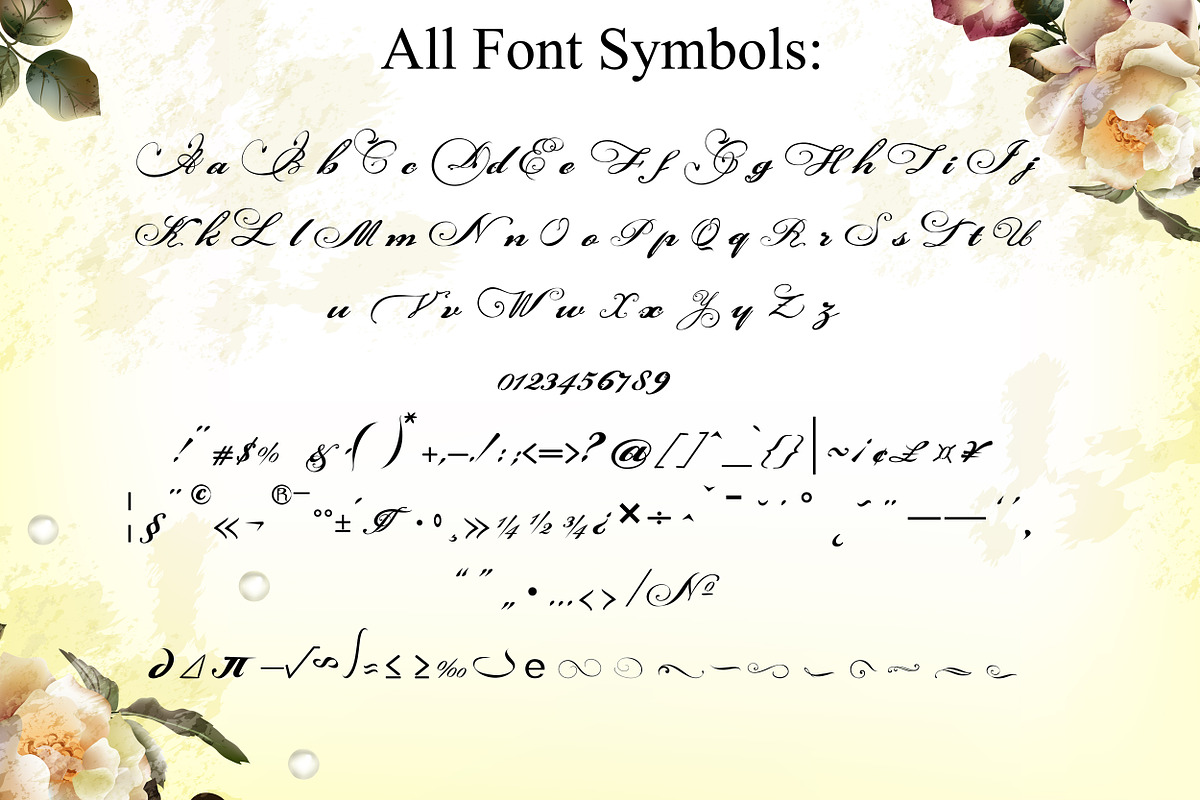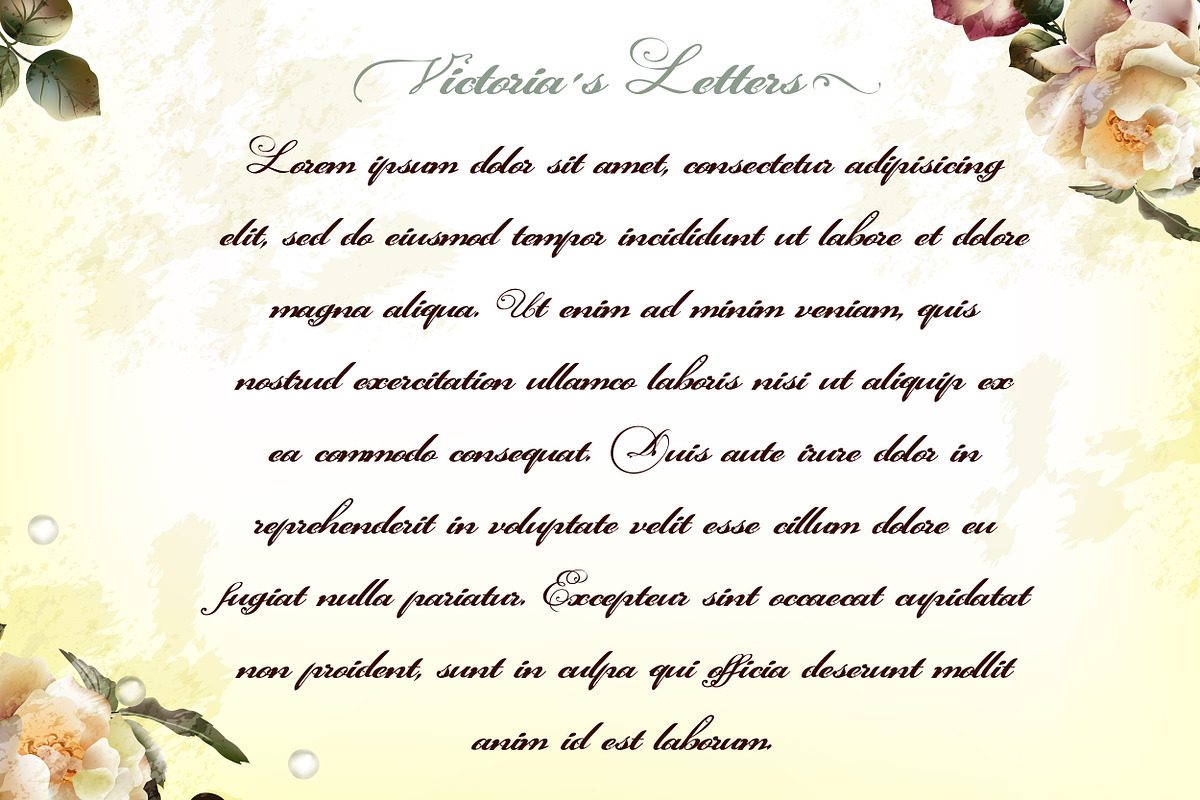
Calligraphic vintage styled font
Calligraphic vintage styled font by FleurArt is a font selected for branding, posters, packaging, typography.
Why Calligraphic vintage styled font is worth a look
Calligraphic vintage styled font by FleurArt fits naturally into Branding, posters, packaging, typography.